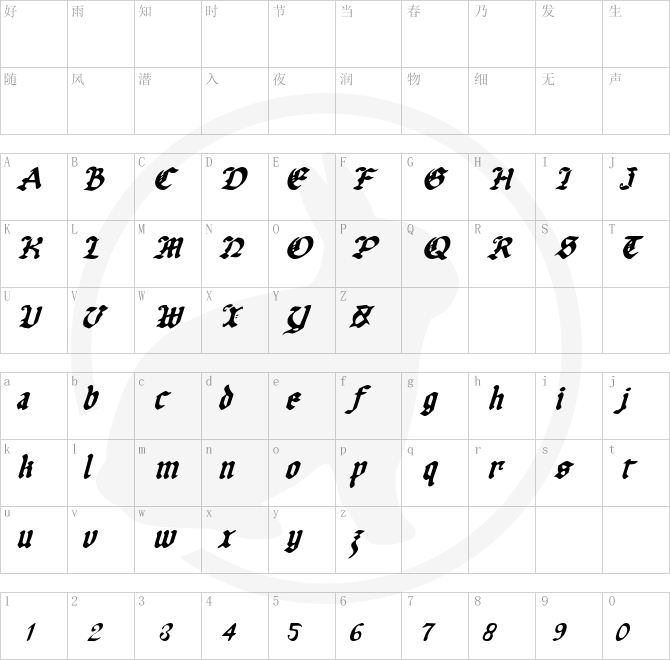
• Font Name:Uberhölme Italic
Uberh-lme-Italic-copy-2-.ttf is a very beautiful artistic font, Uberh-lme-Italic-copy-2-.ttf is widely used in the design and printing of various books and pictures,Uberh-lme-Italic-copy-2-.ttf has a strong visual impact,Uberh-lme-Italic-copy-2-.ttf is a commonly used font in newspapers, magazines and books, and is used in posters, e-commerce Poster design, store design, logo design, font design and other fields.Uberh-lme-Italic-copy-2-.